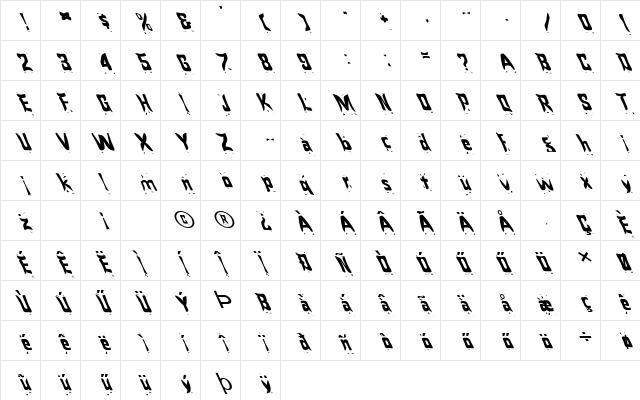
WARPED24-LEFTYHU Normal A Free Font
WARPED24-LEFTYHU Normal A
Style: Normal A
Complete WARPED24-LEFTYHU Normal A glyph index. Displaying only characters natively supported by WARPED24-LEFTYHU Normal A font.
Design Context for WARPED24-LEFTYHU
WARPED24-LEFTYHU is a composed and adaptable typeface that performs quietly and consistently across a wide range of design contexts.